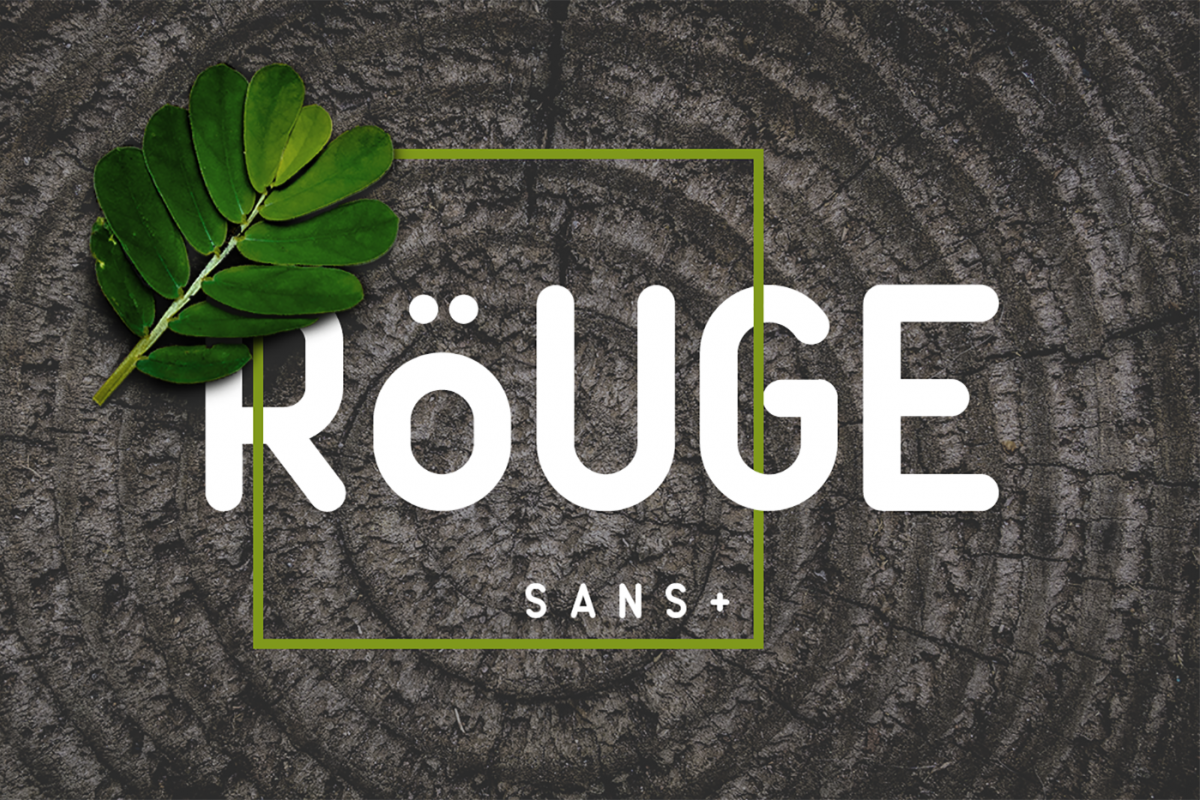
Rouge Sans
Rouge Sans is a clean and simple sans serif font, with smooth edges to simulate vintage design. Perfect for many different projects: quotes, blog header, poster, wedding, branding, logo, fashion, apparel, letter, invitation, stationery, etc.
Weight: Bold, Regular and Light